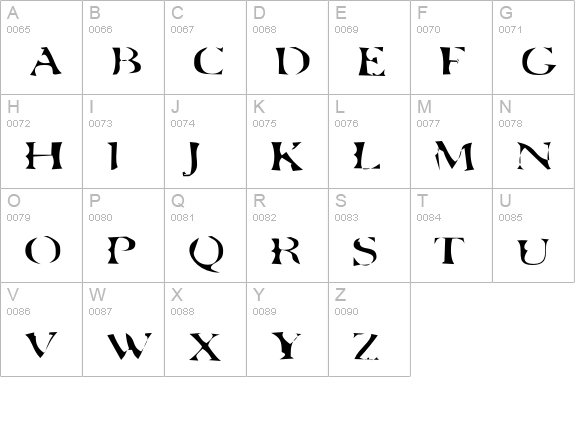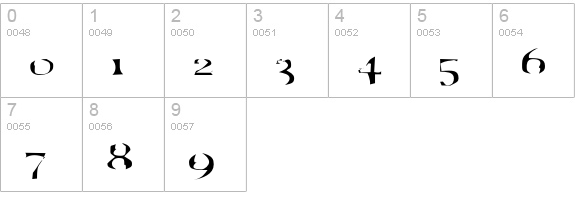
LoveNote Font Details
LoveNote font is a beautiful and elegant typeface that exudes love and romance in every curve and stroke. Its delicate lines and graceful swashes make it perfect for wedding invitations, love letters, and heartfelt messages. The LoveNote font is freely available to download at FontsMarket.com, allowing you to add a touch of romance to your designs without any cost. Embrace the beauty of love with LoveNote font and let your words speak from the heart.